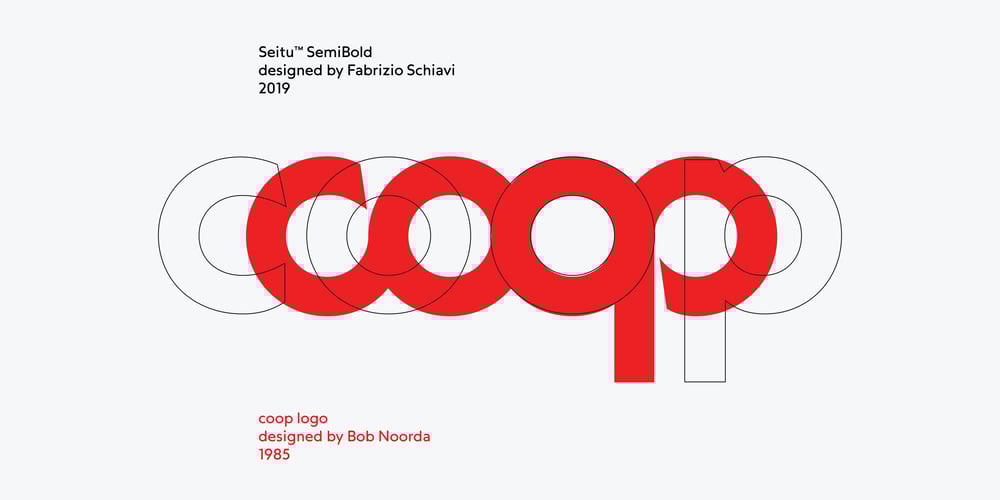
Seitu Font Family was designed by Fabrizio Schiavi and published by FSD. Seitu contains 9 styles and family package options. This variable font is a Fabrizio Schiavi typographic interpretation and development of the legendary coop logotype designed by Albe Steiner and later improved by Bob Noorda in 1985